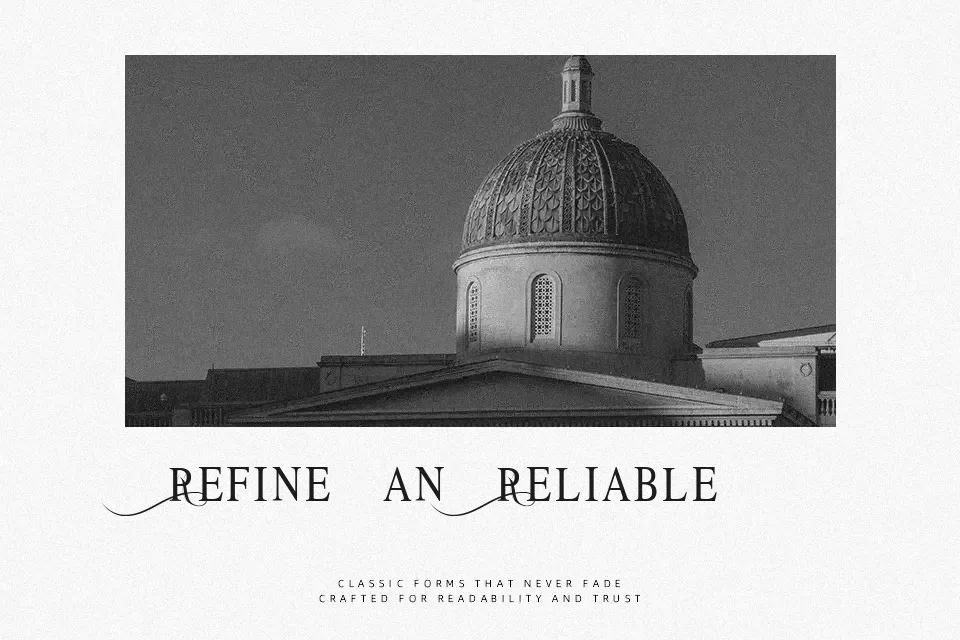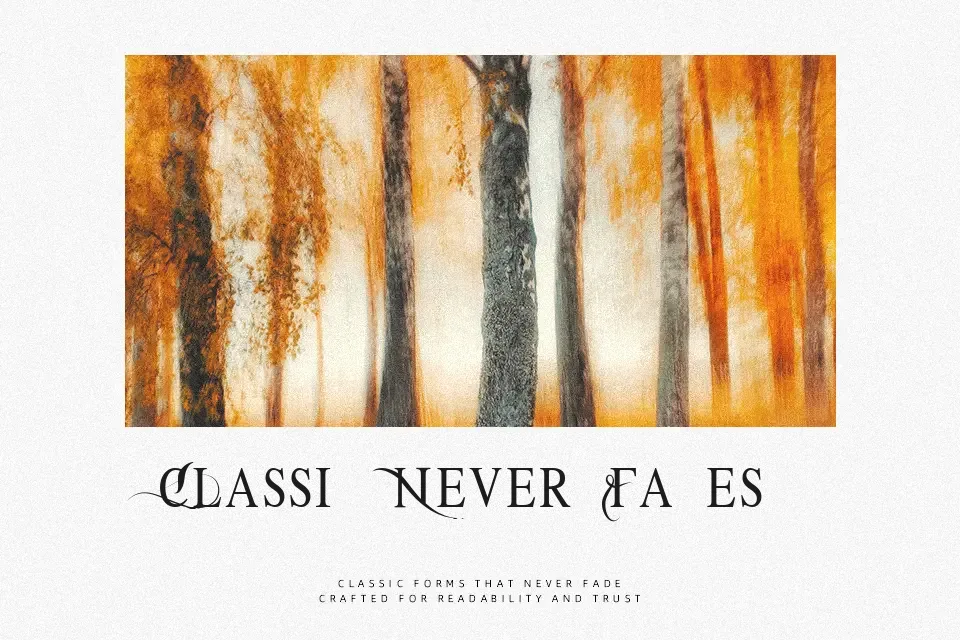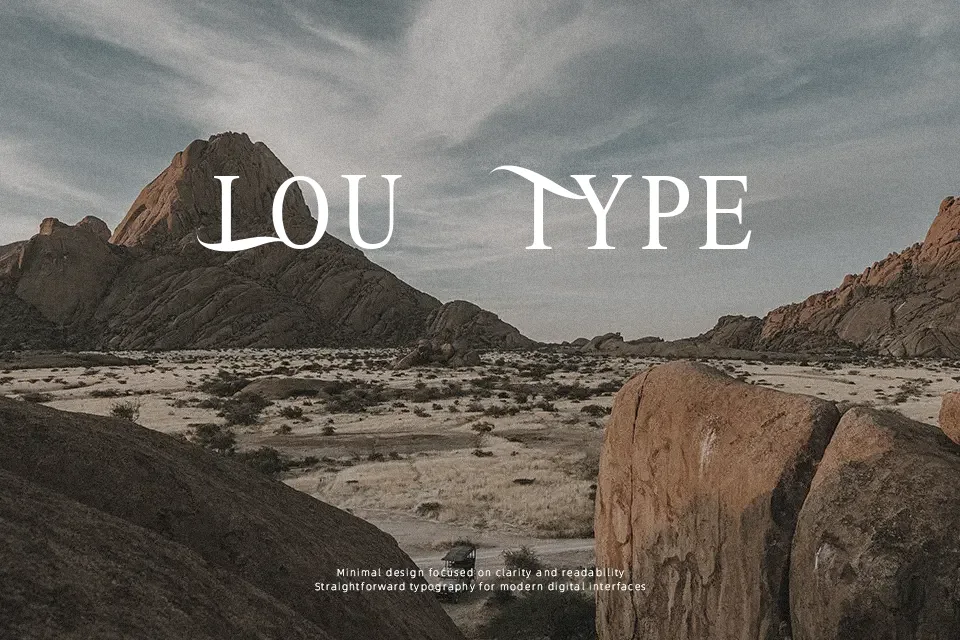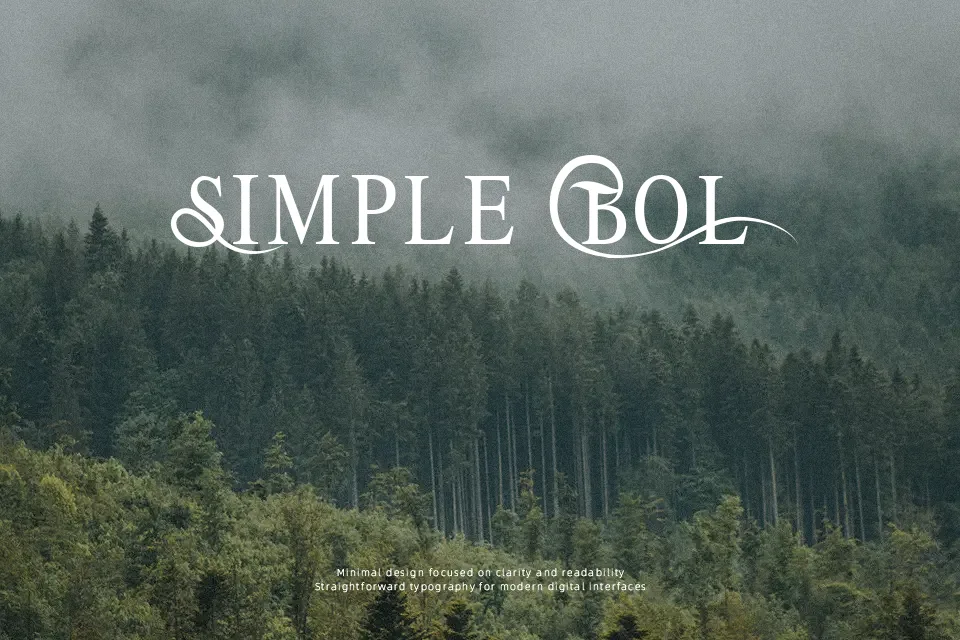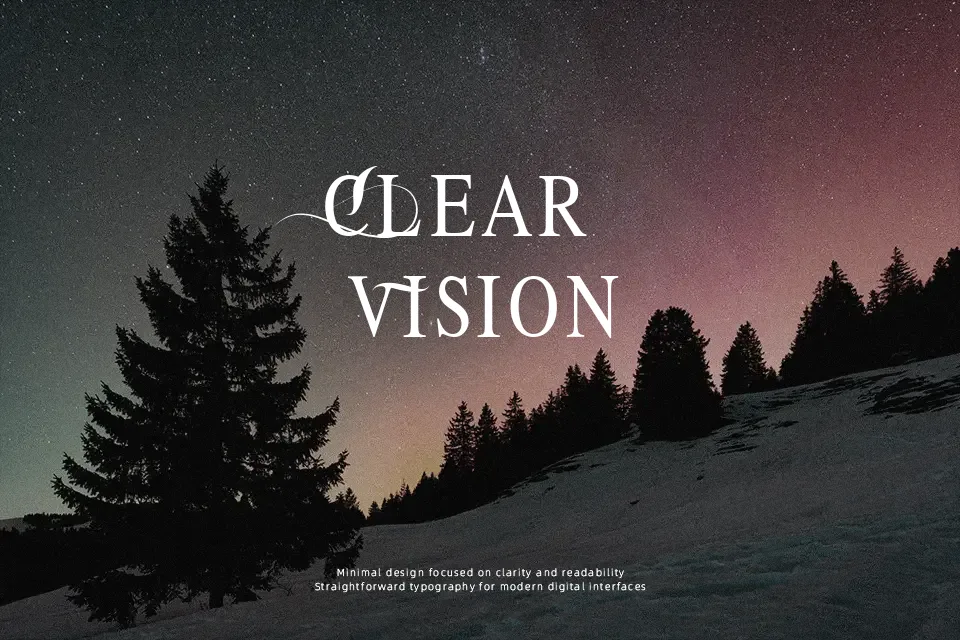
The Alistaren Font
The Alistaren Font showcases a dramatic display serif construction distinguished by crisp terminals, pronounced character proportions, and moderate vertical stroke contrast. Generous uppercase letterforms pair with controlled character spacing to maintain legibility in prominent titling layouts, while deliberate decorative flourishes give words an artistic, vintage flair. This design performs with notable distinction when set as short headlines or celebratory packaging accents, allowing individual glyph details to stand out clearly. Intricate stroke junctions and ornamental contours reduce reading comfort when applied to continuous body copy or small interface elements.
Best For: luxury packaging accents, vintage poster headlines, editorial title covers, celebratory invitations
Not Ideal For: dense body text, small user interface captions, technical documentation, mobile app data tables
Perfect for branding, headline, and invitation, with a artistic and decorative style.